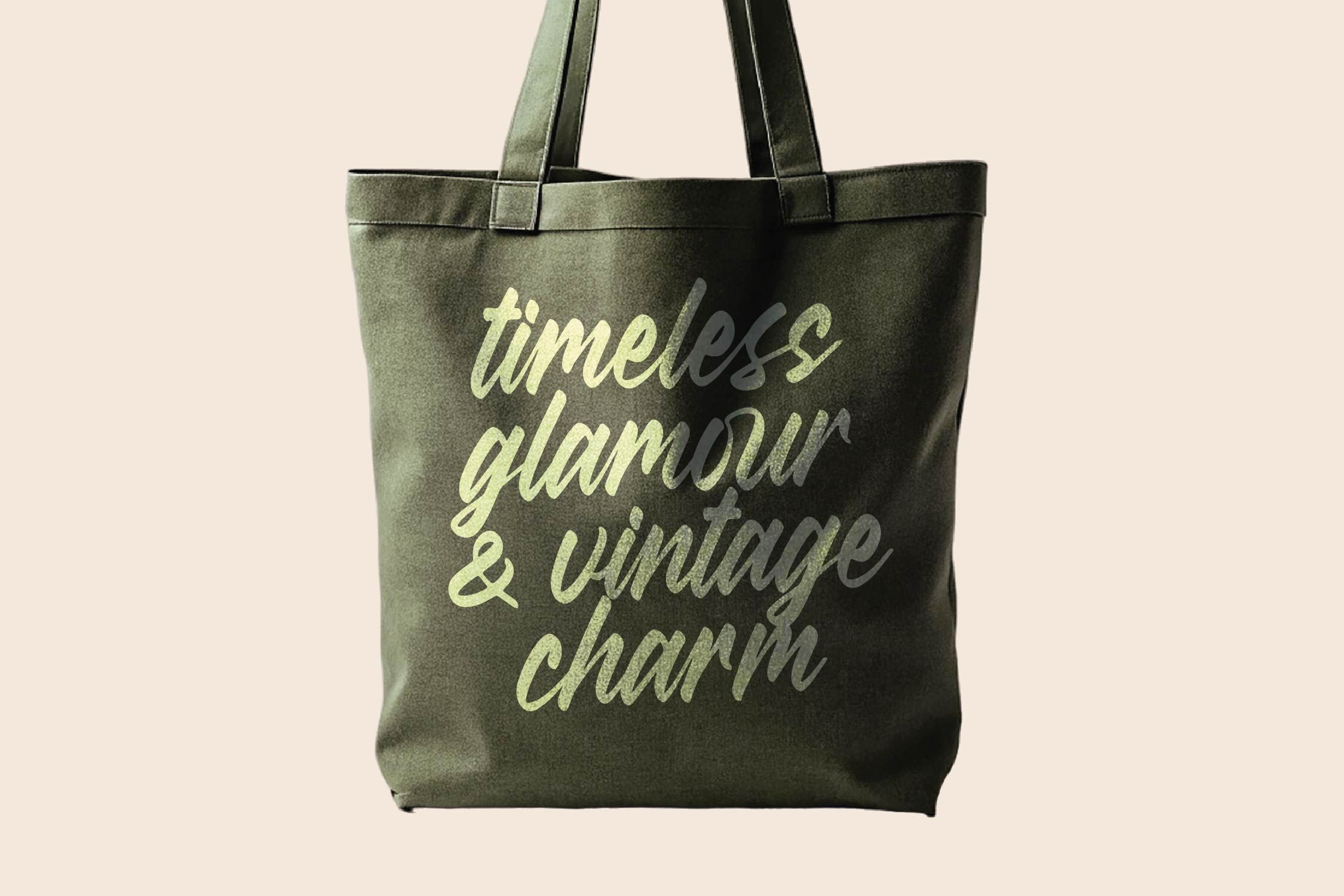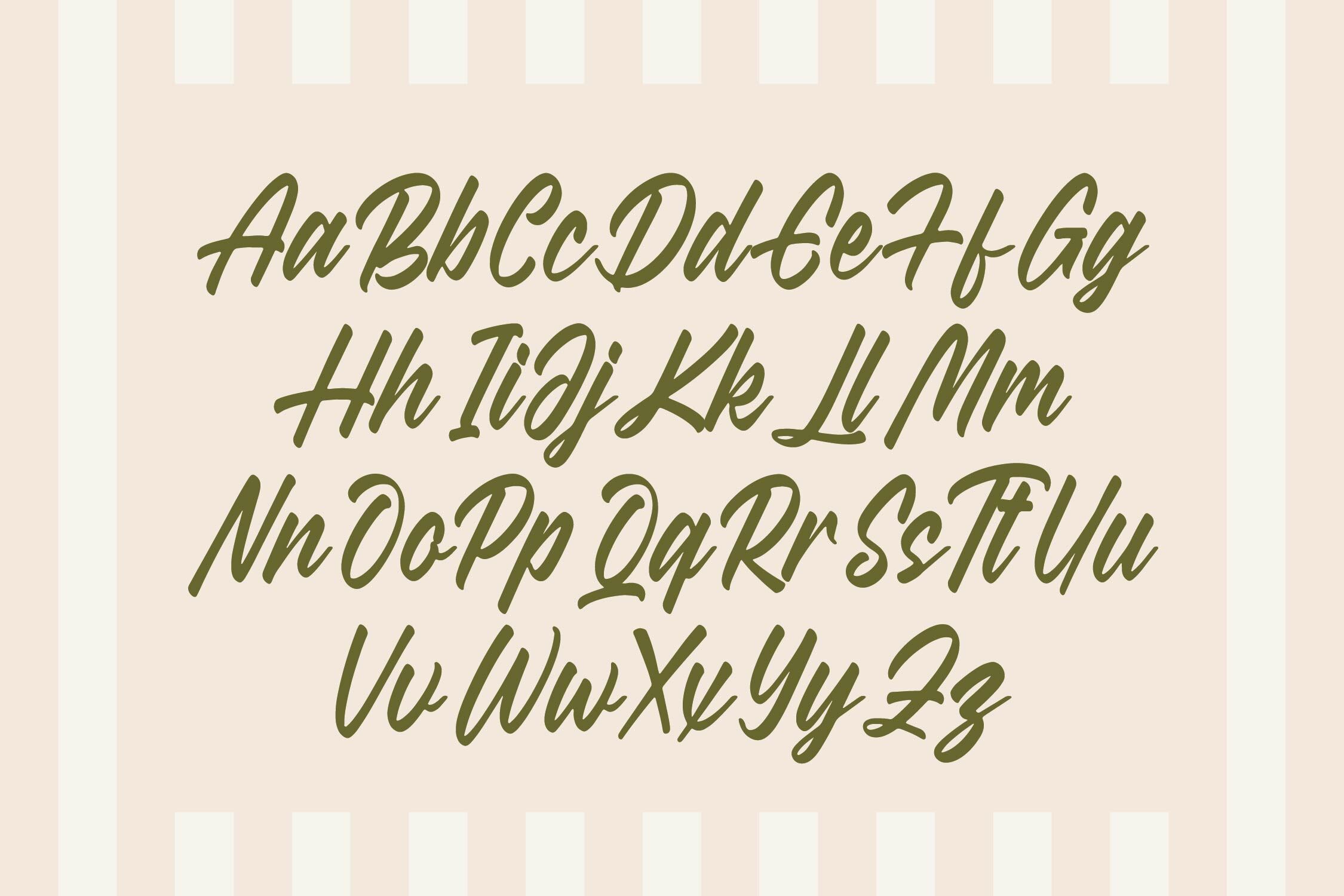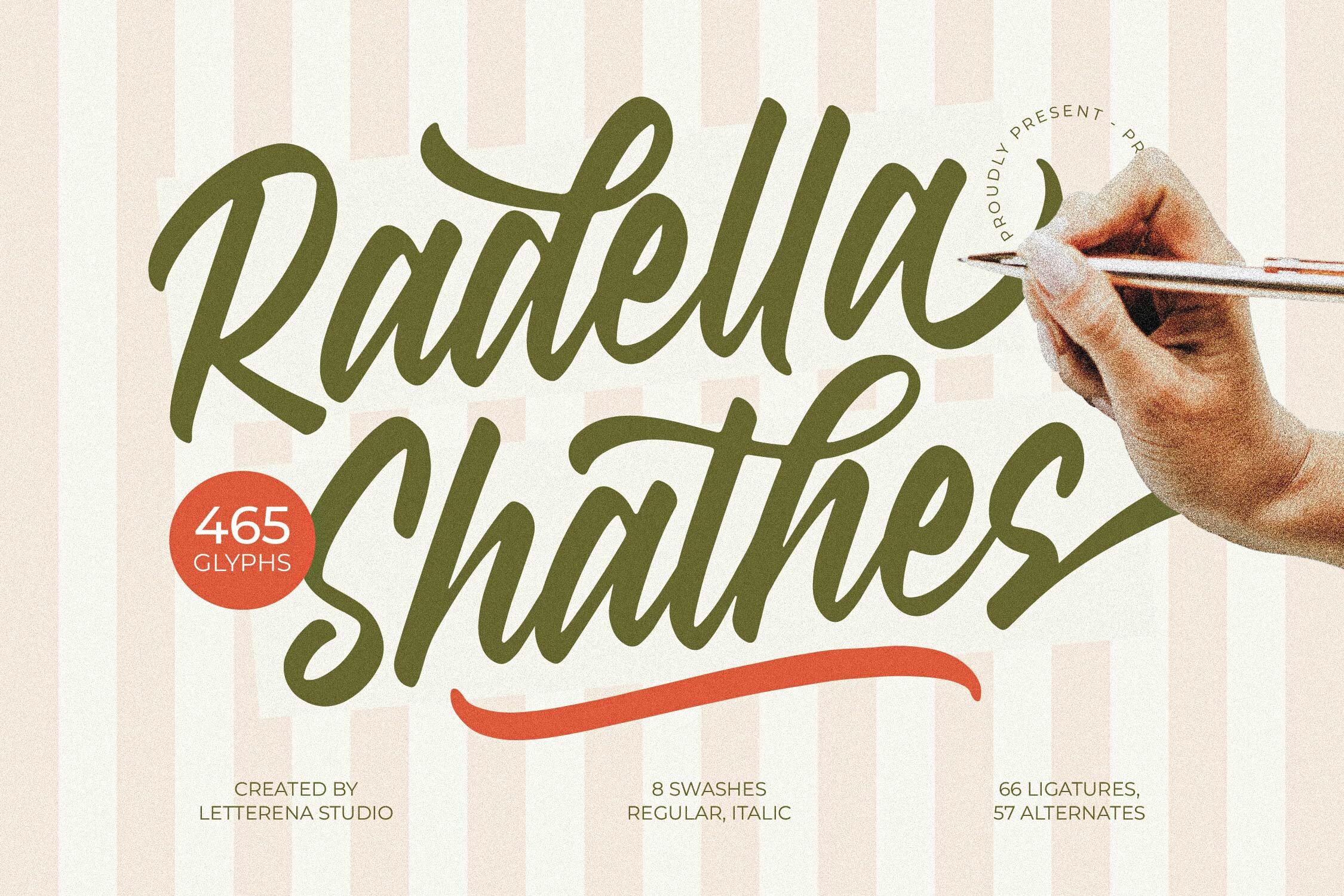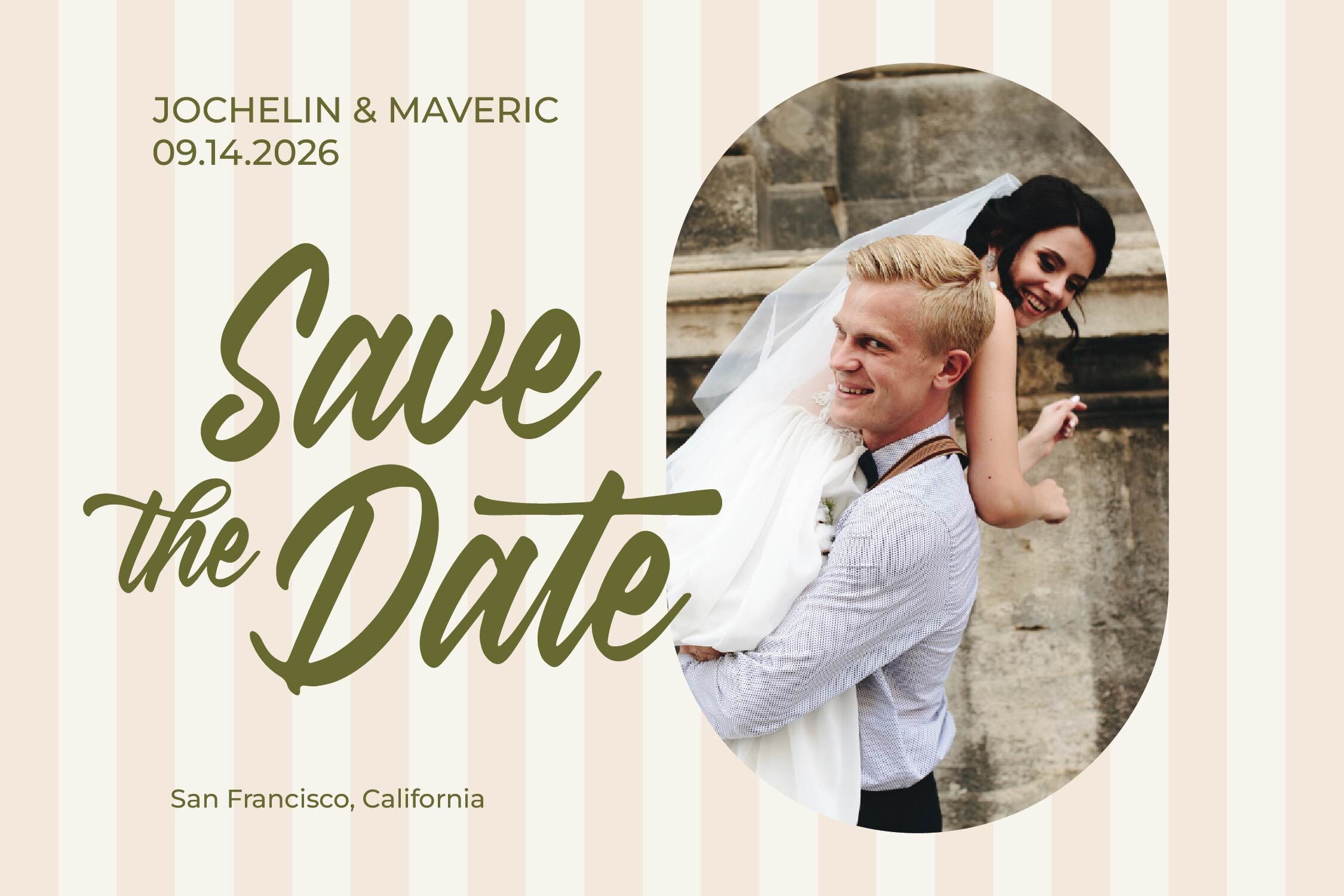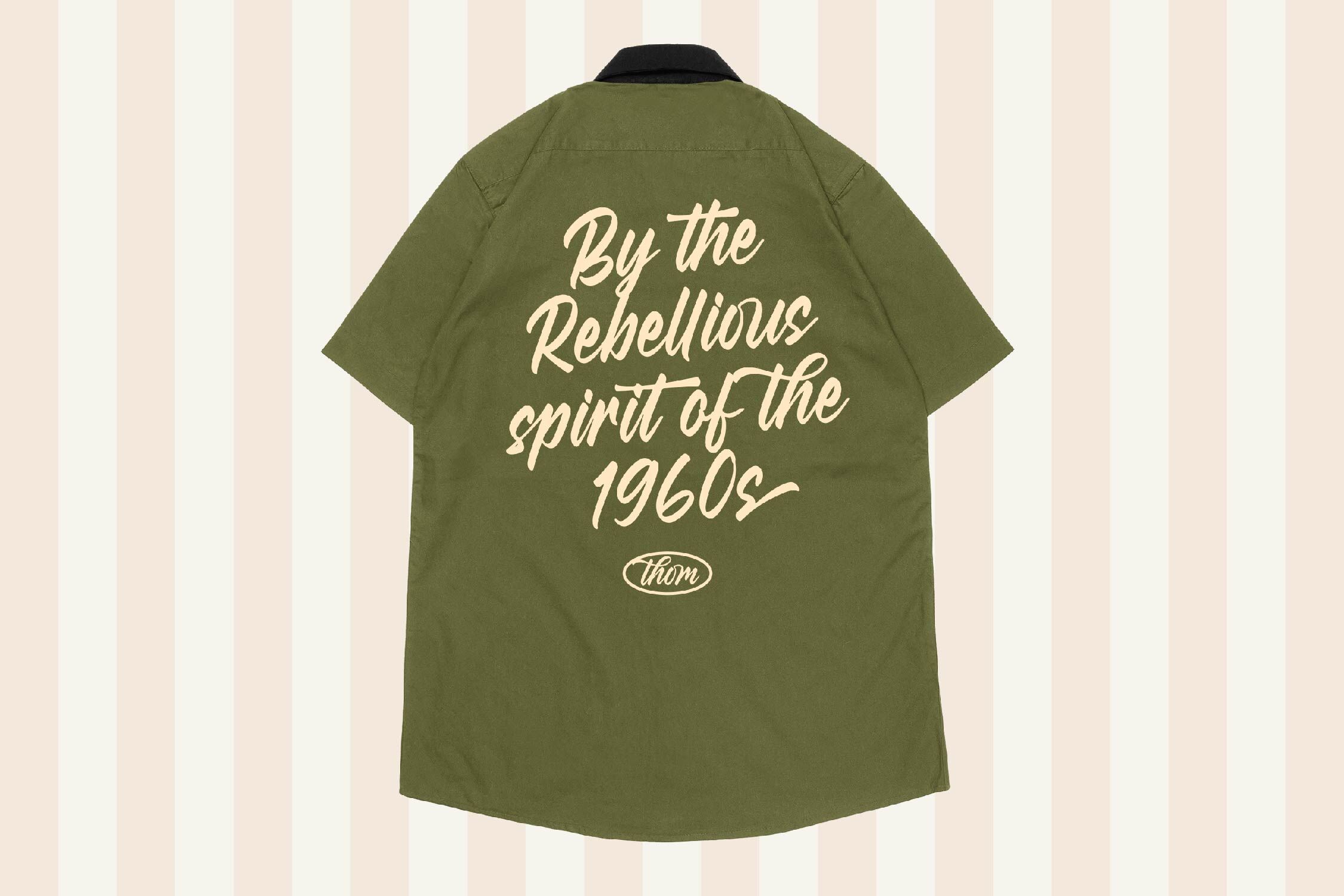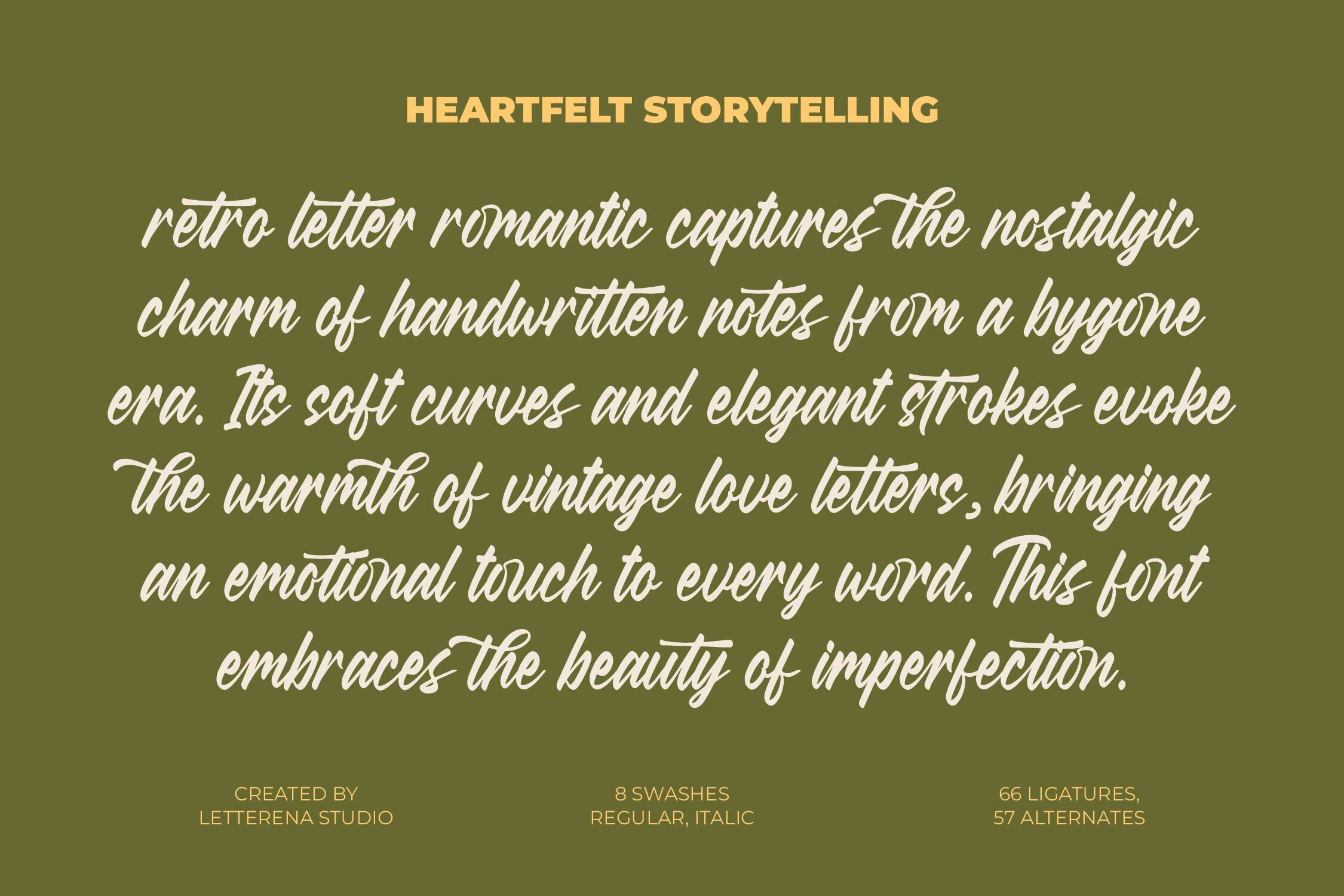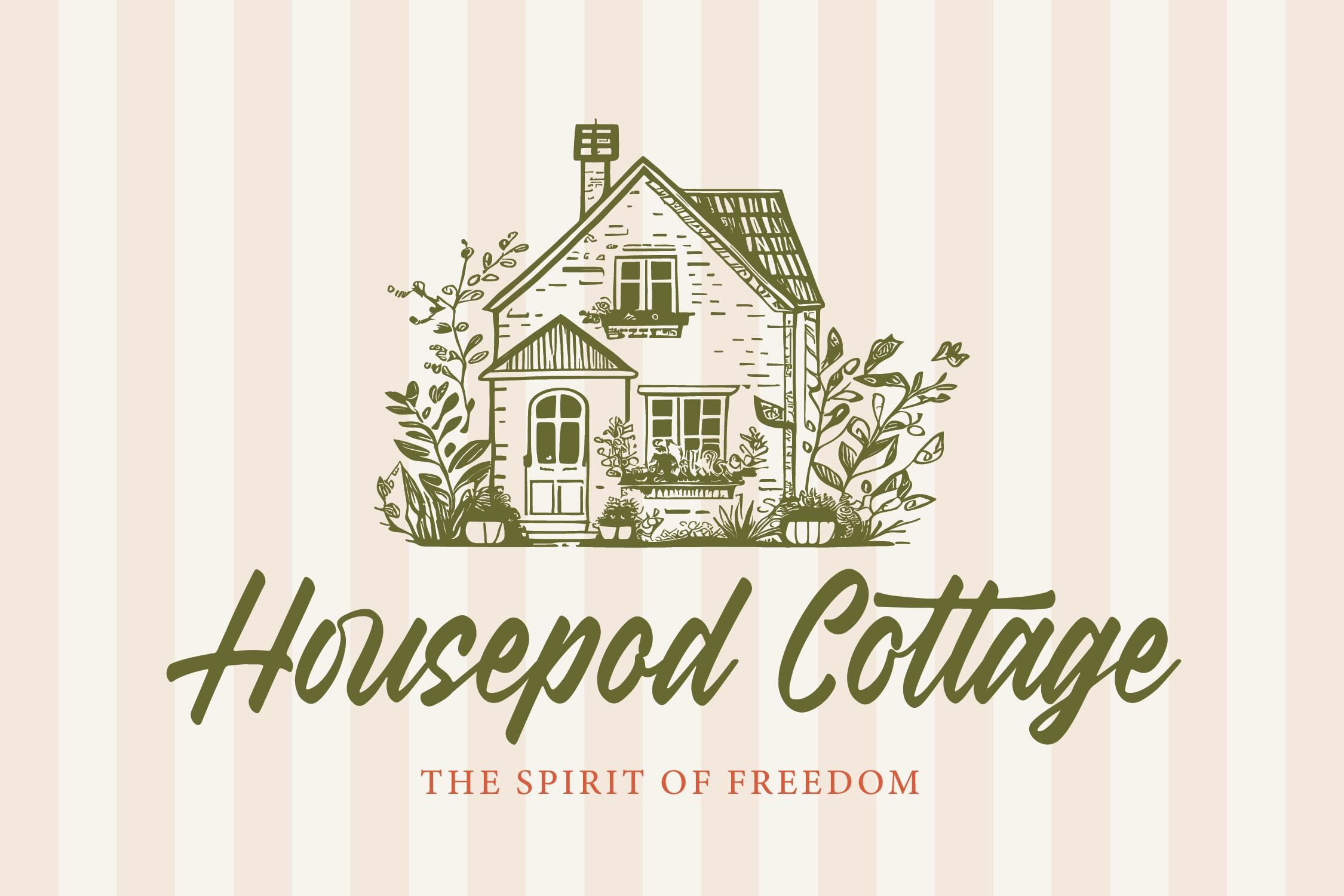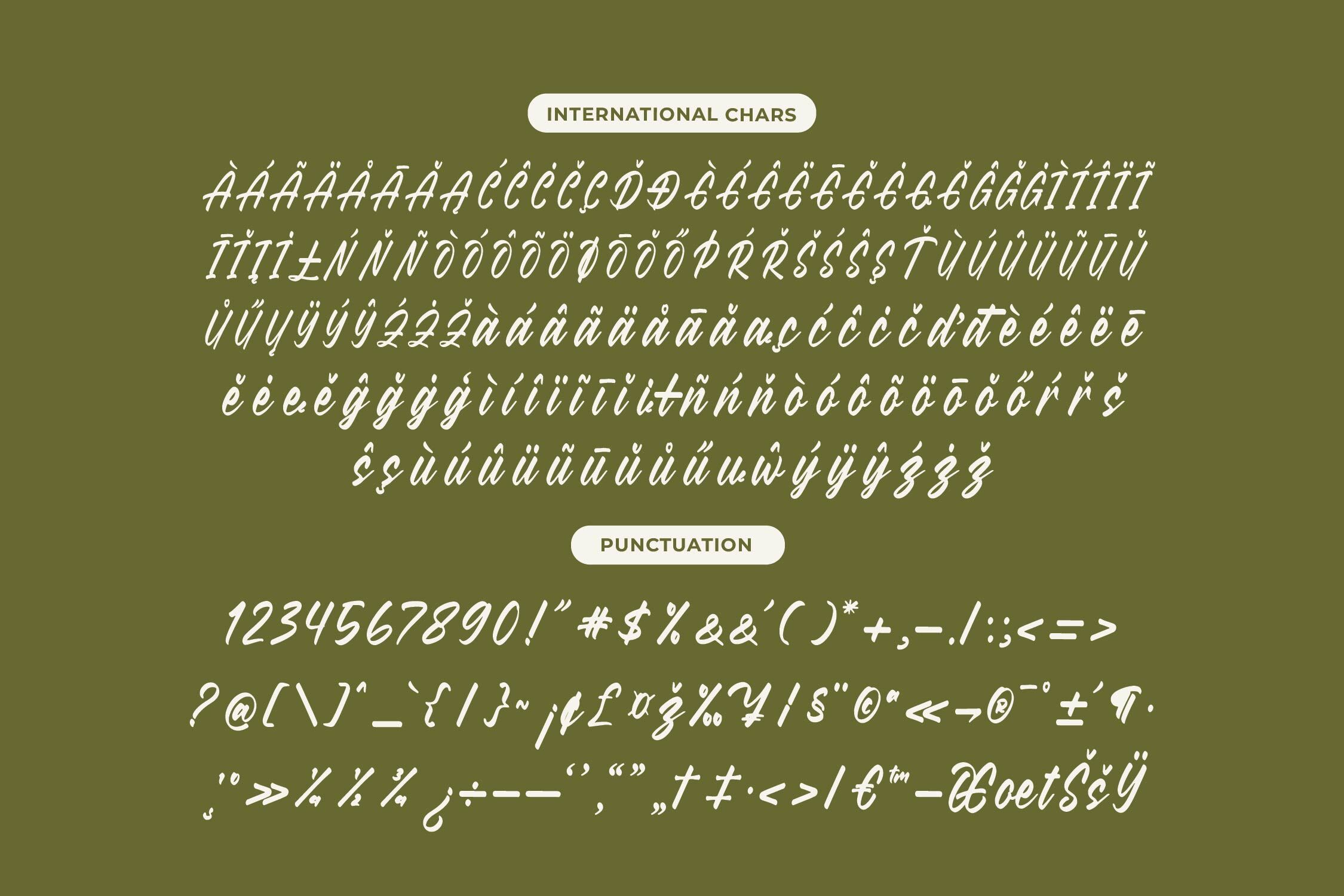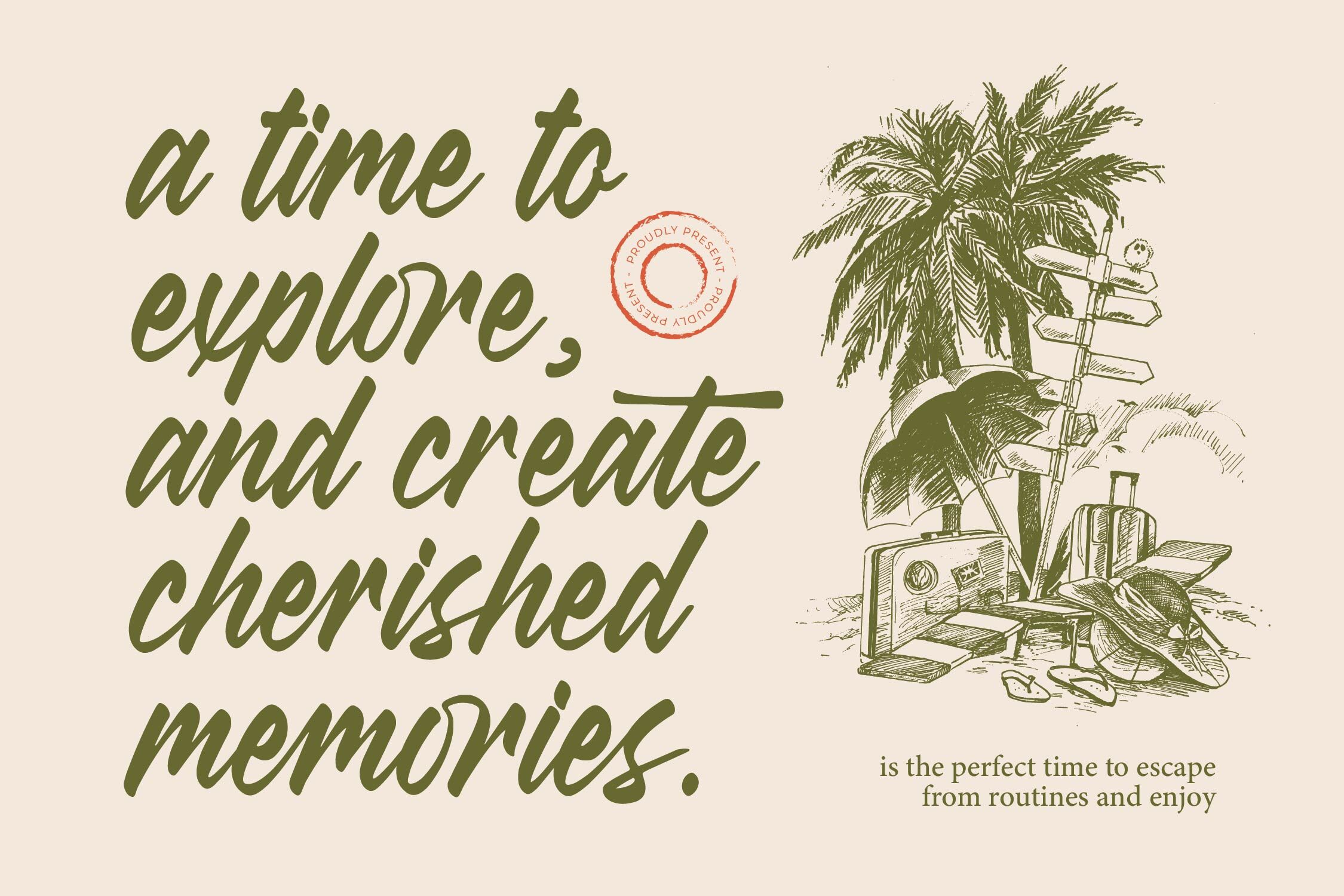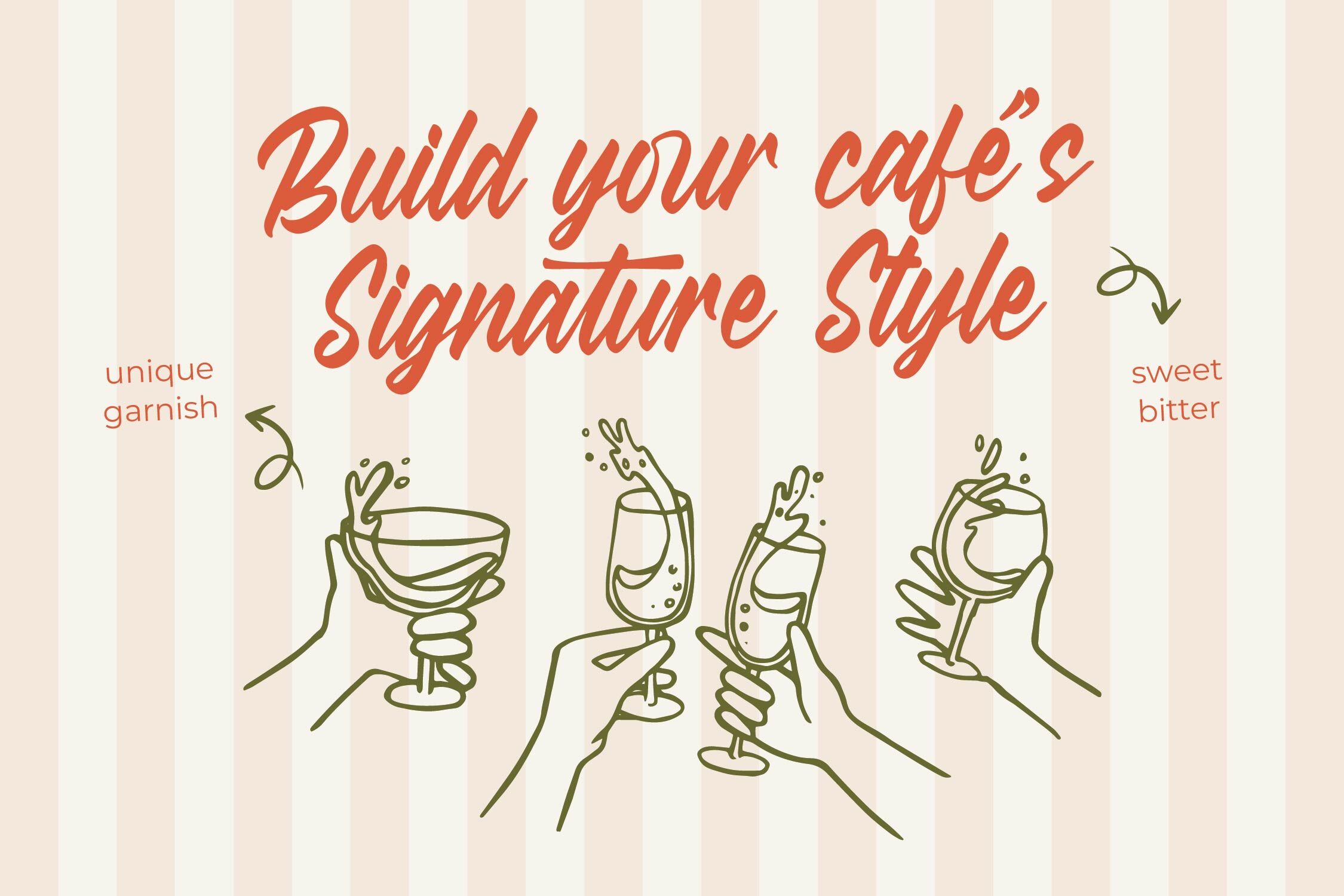
Radella Shathes - Bold Calligraphy Font
Radella Shathes - Bold Calligraphy Font , Radella Shathes is a Bold Calligraphy Font designed with dynamic strokes, confident curves, and a handcrafted brush-lettering feel. It brings bold personality and expressive movement to any creative project, making it ideal for impactful branding, standout logotypes, packaging, posters, merchandise, and modern advertising. Featuring 465 glyphs, 66 ligatures, 57 alternates, and 8 swashes (Regular & Italic), this font provides exceptional flexibility for crafting unique, artistic, and memorable designs. Whether you're creating a bold signature logo or a stylish display headline, Radella Shathes delivers strong visual character.
Radella Shathes Italic
Radella Shathes